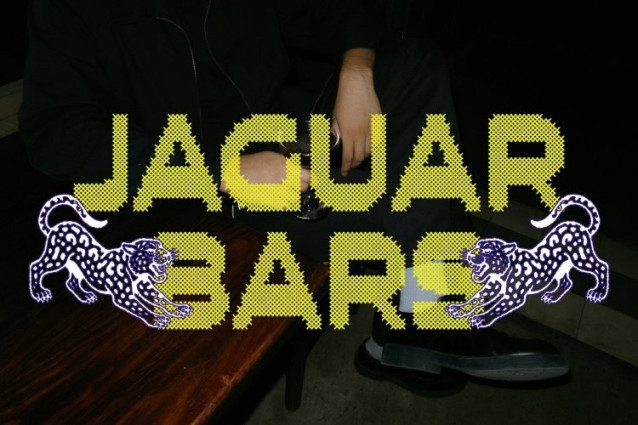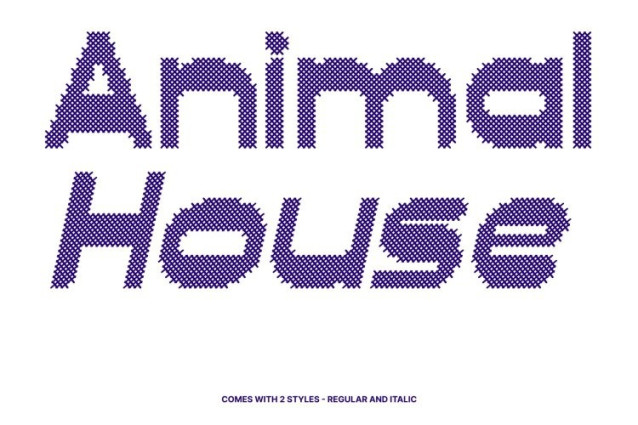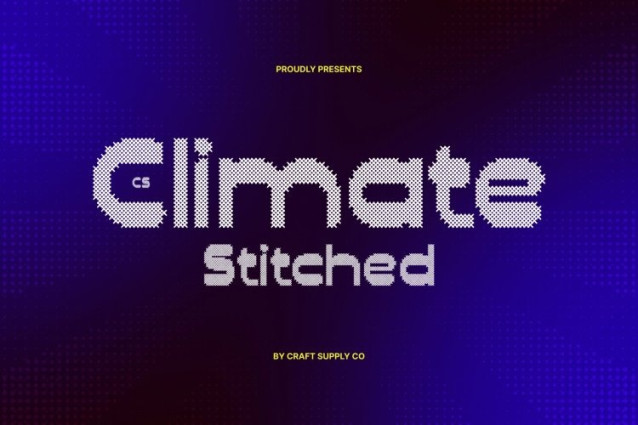
CS Climate Stitched Font
CS Climate Stitched Font is a contemporary reverse contrast sans serif font that merges bold innovation with refined structure. Its distinctive weight distribution gives the letterforms a striking personality, creating a confident and modern typographic presence. Enhanced with a stitched style inspired by thread sewn or embroidered on fabric, this version introduces a handcrafted texture that adds warmth and tactile character.
Rounded Modular Forms with Embossed Stitch Detail
The font’s rounded edges and modular shapes bring rhythm and balance to every composition. A distinctive cross-shaped stitch pattern overlays each letterform, creating an embossed, fabric-like texture that enriches the design with depth and visual interest. This stitched detailing adds a classic, nostalgic, relaxed, and warm impression while maintaining the bold geometric.
Modern Design Inspired by Classic Movements
Drawing inspiration from mid-century and industrial design, this font reflects a harmonious relationship between form and function. Its reverse contrast style subtly references vintage typography, while the smooth curves and stitched texture give the font a contemporary yet approachable character that feels both innovative and timeless.
Perfect for Distinctive Branding and Visual Campaigns
This is ideal for branding, editorial layouts, posters, packaging, and promotional materials. Its bold modern structure combined with handcrafted stitched detailing creates a unique typographic voice that stands out across both digital and print media, delivering clarity, creativity, and modern sophistication in every design.